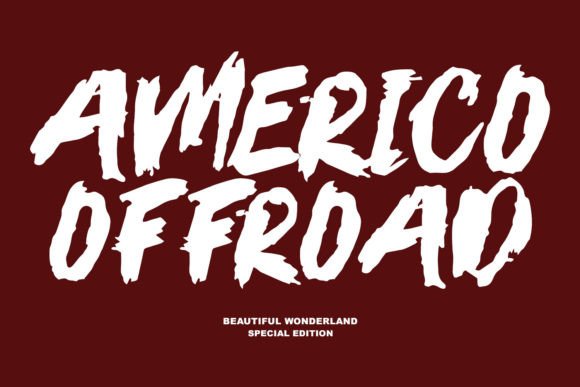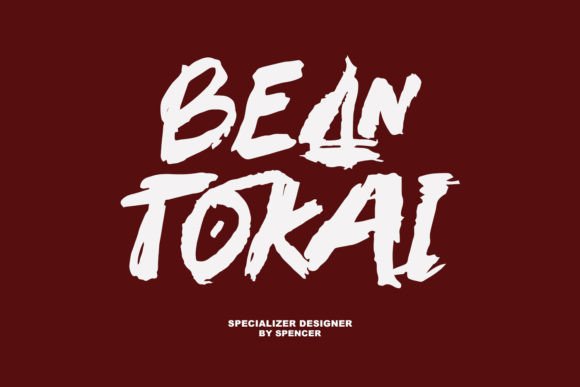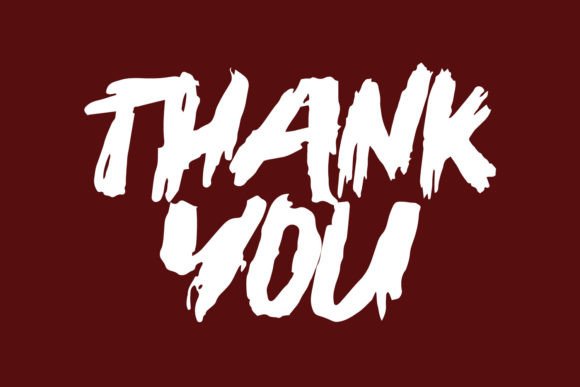
Introduction to Frenxe Wonder Font
Have you ever been in a creative flow, where the perfect font just seems to magically appear in your mind’s eye? That’s exactly what happened to many designers who stumbled upon the Frenxe Wonder Font. Its authentic handcrafted feel and high-quality design make it a go-to resource for any creative project.
Whether you’re working on a logo, a website header, or even a book cover, the Frenxe Wonder Font is sure to elevate your design to the next level. Its versatility and unique style make it an ideal choice for designers who want to add a personal touch to their work.
Key Features of Frenxe Wonder Font
- Unique, eye-catching font with a wide range of applications, from branding to digital design.
- Perfect for designers looking for a unique and stylish font to elevate their design projects.
Honest Review: Frenxe Wonder Font
I recently stumbled upon the Frenxe Wonder Font and I must say it’s been a game-changer for my design projects. The font’s unique blend of elegance and playfulness makes it a perfect addition to any creative project.
Here are some of the things that work well with the Frenxe Wonder Font:
- High-quality design: The font is crisp and clear, with a high level of detail that makes it perfect for both digital and print projects.
While the Frenxe Wonder Font is a great resource, there are a few limitations to keep in mind:
- ⚠️ Limited font styles: The font only comes in a few styles, which may limit its use in certain design contexts.
- ⚠️ Not suitable for large-scale use: The font may not be suitable for large-scale use, such as in publications or advertising campaigns.
Overall, I’m impressed with the Frenxe Wonder Font and would recommend it to designers looking for a high-quality, free resource for their creative projects.
How to Use Frenxe Wonder Font
Frenxe Wonder Font is a high-quality, free download design resource ideal for creative projects. This versatile font features a transparent background, making it easy to customize and integrate into various design elements.
Tips for Getting the Most Out of Frenxe Wonder Font
Experiment with different font sizes, colors, and styles to create unique and eye-catching designs. Combine Frenxe Wonder Font with other design elements, such as graphics and images, to create visually appealing projects.
Frenxe Wonder Font is suitable for various design projects, including:
- Logo designs
- Branding materials
- Print materials
- Digital graphics